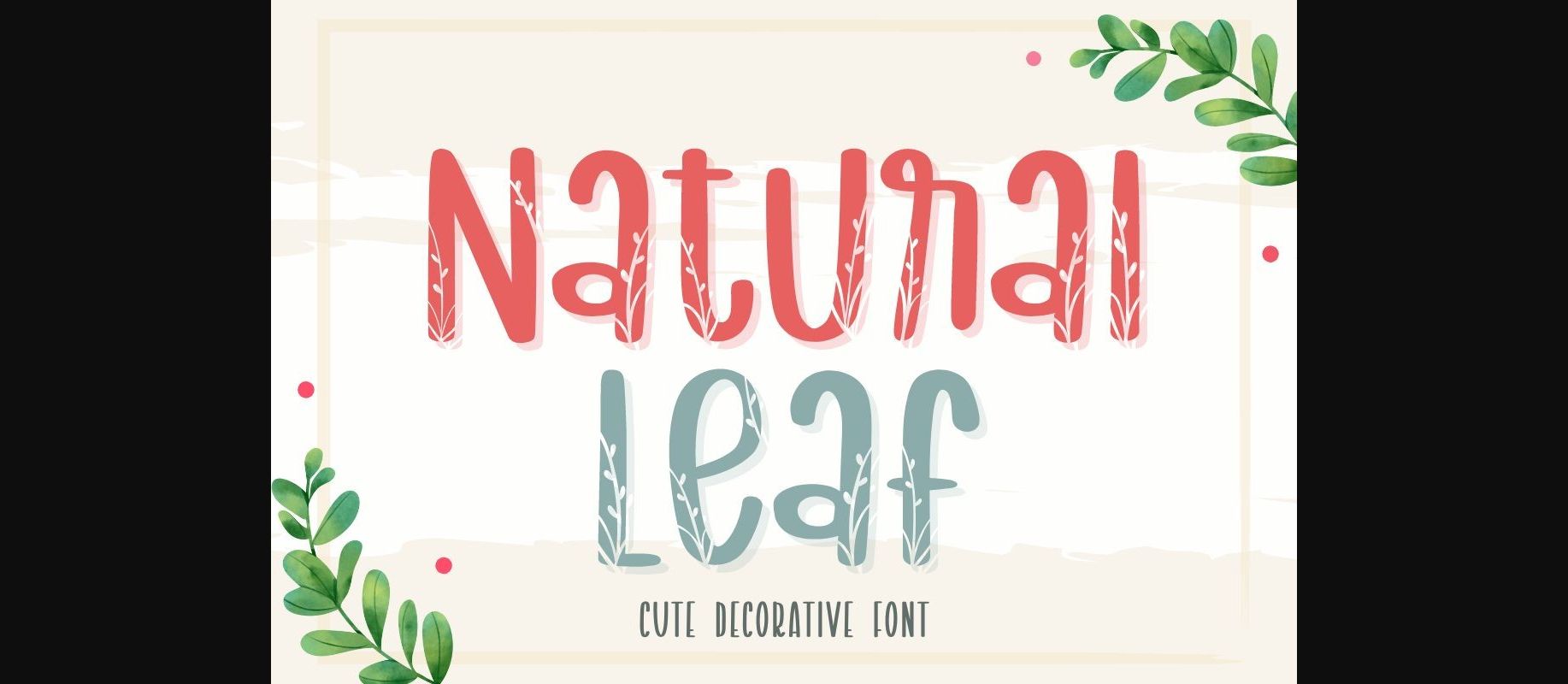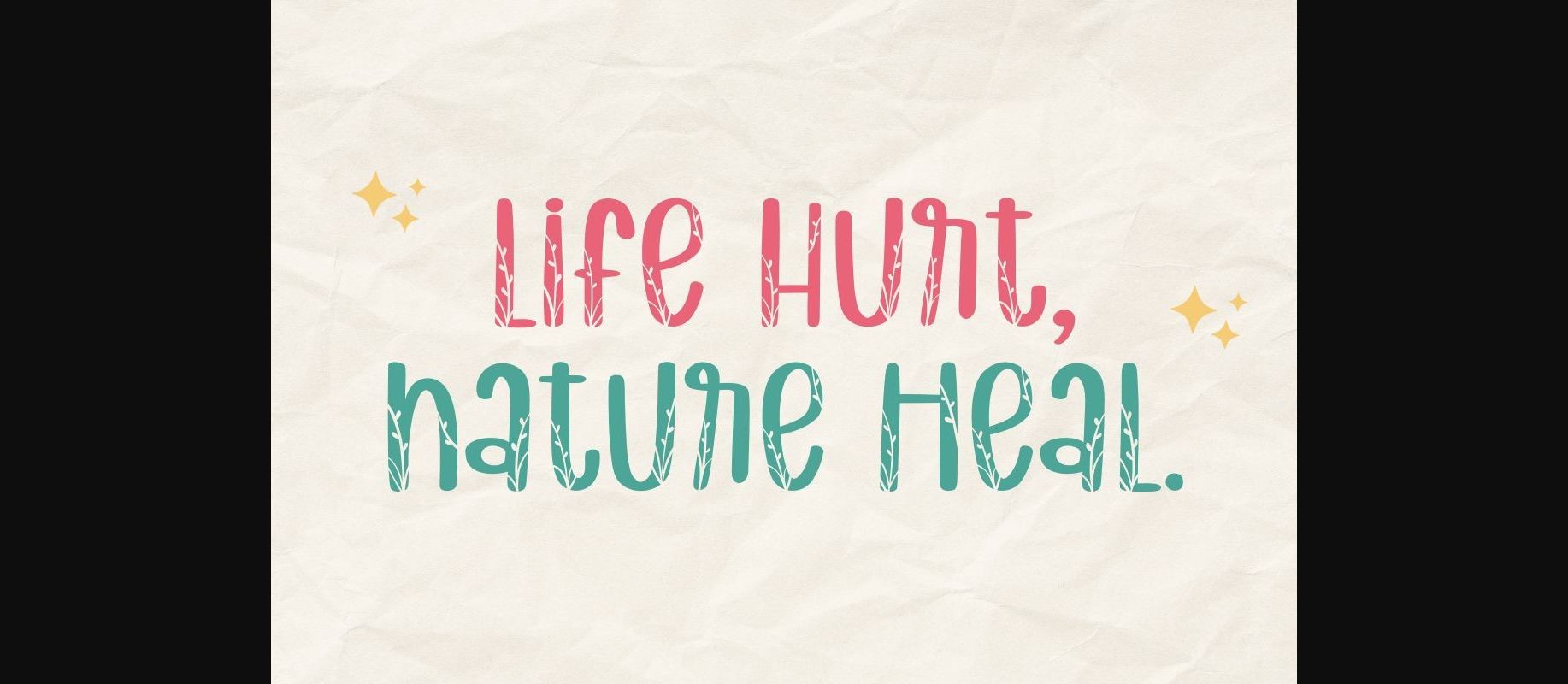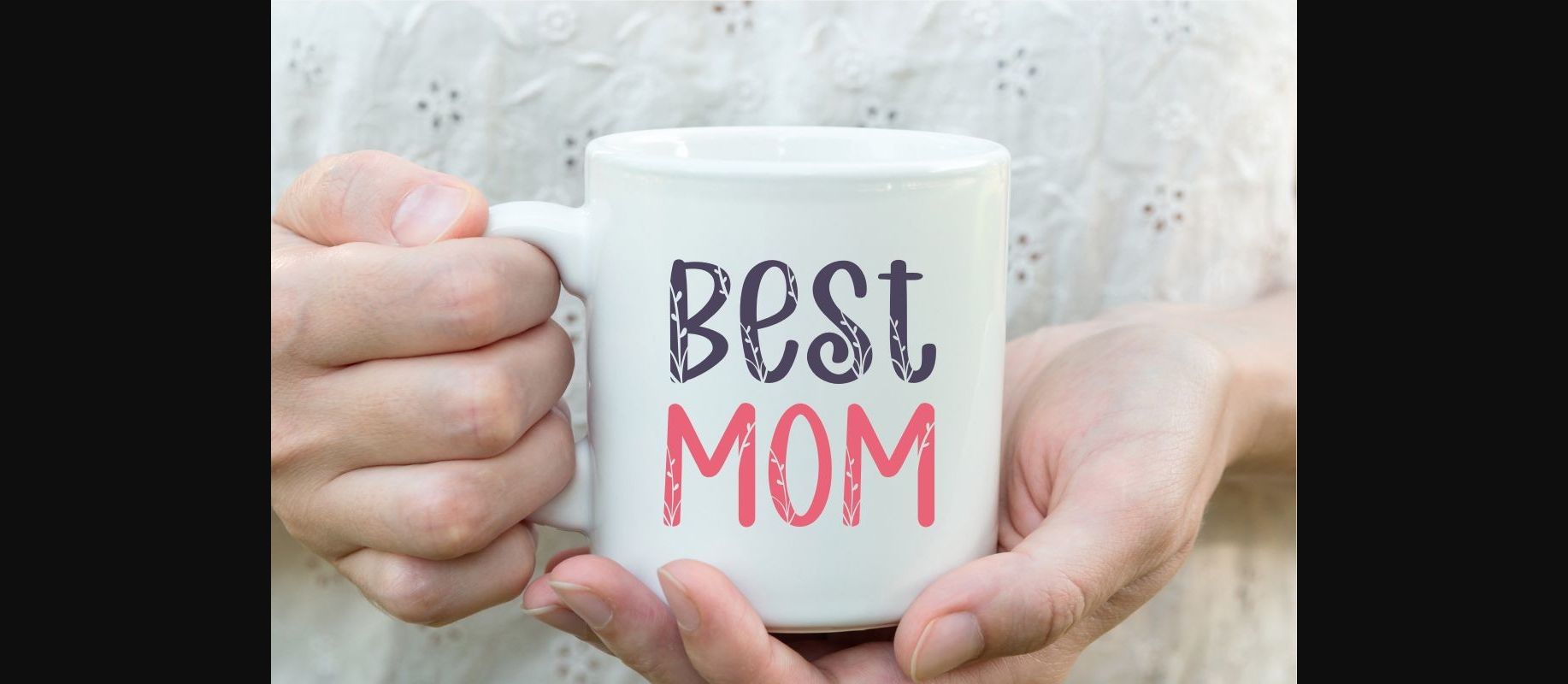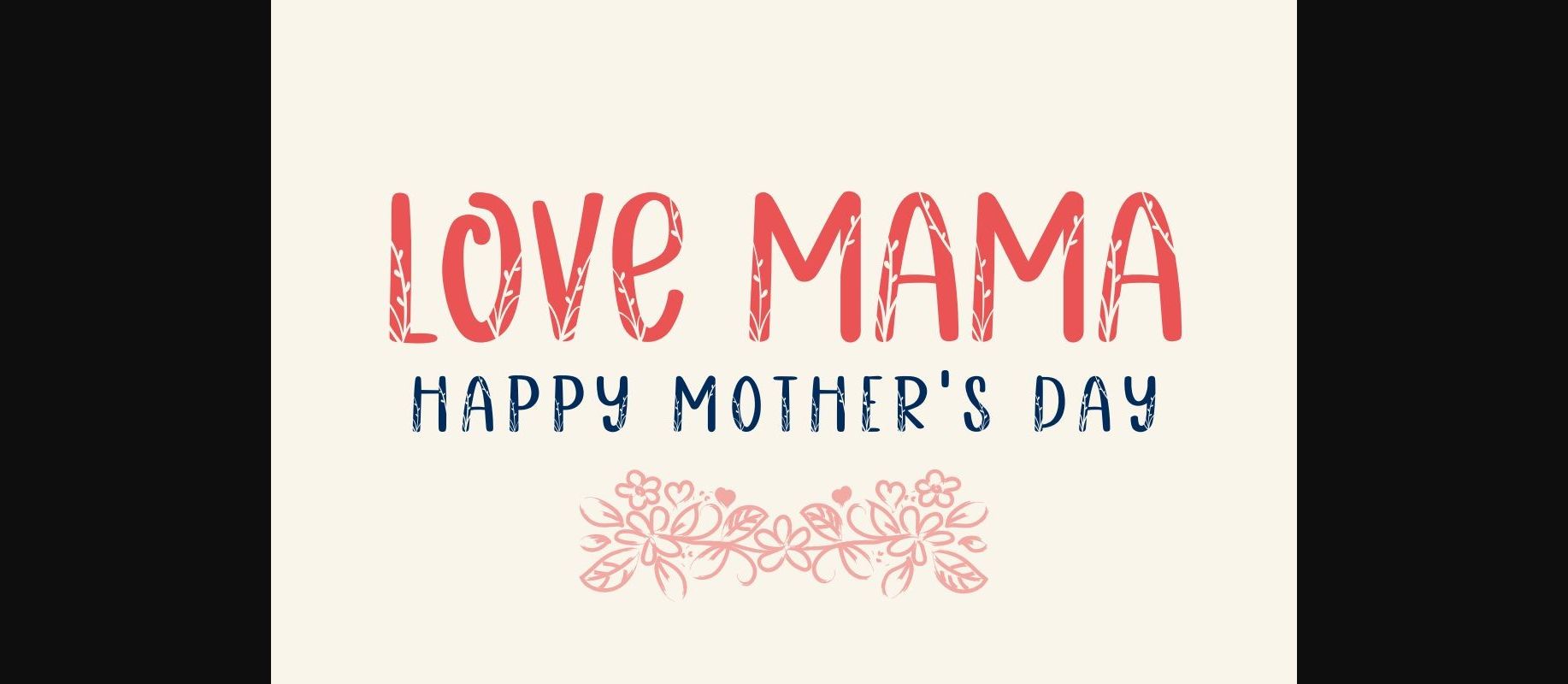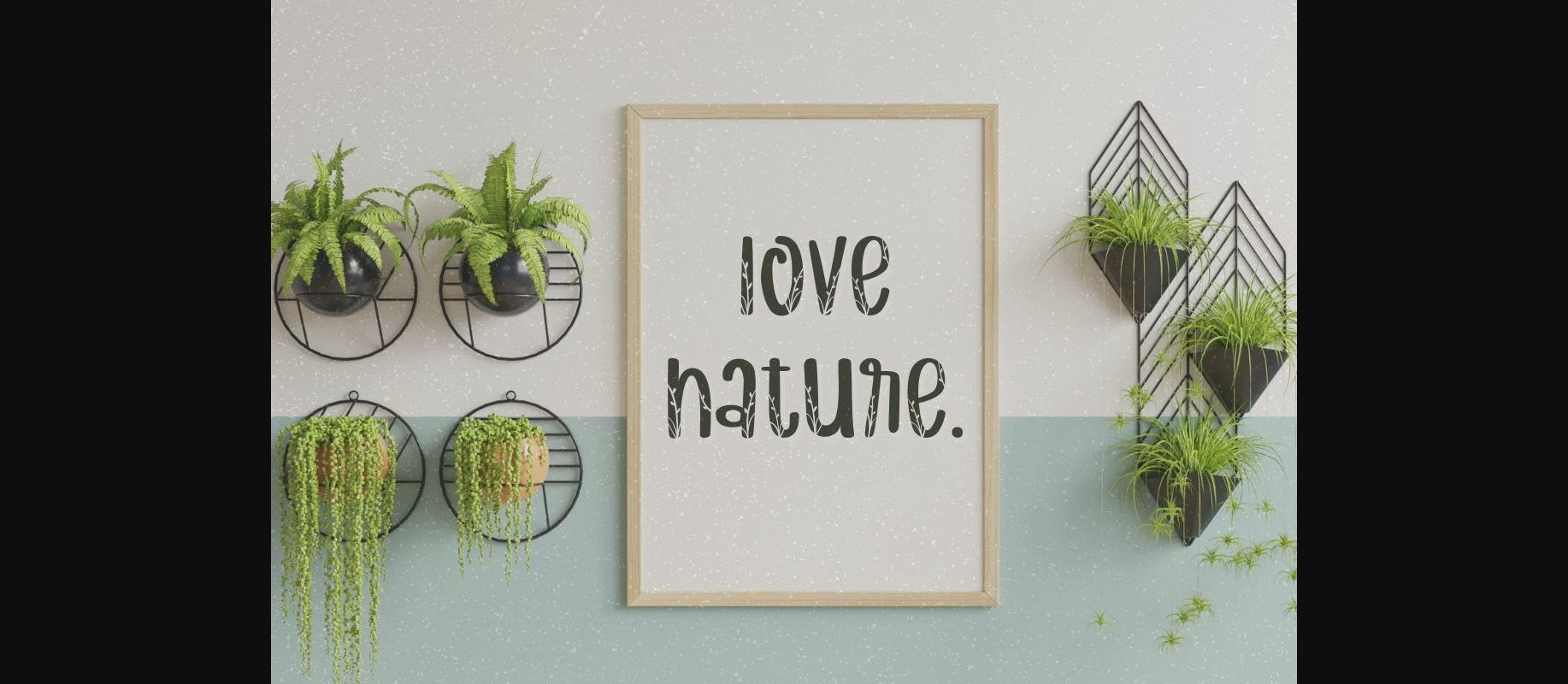
About Natural Leaf Font
Natural Leaf is a cute decorative font that will help you enjoy and have fun with your designs. Perfect for creating a wide variety of new designs to match products such as banners, content, mugs, cards, shirts, stationery, social media posts, and more!